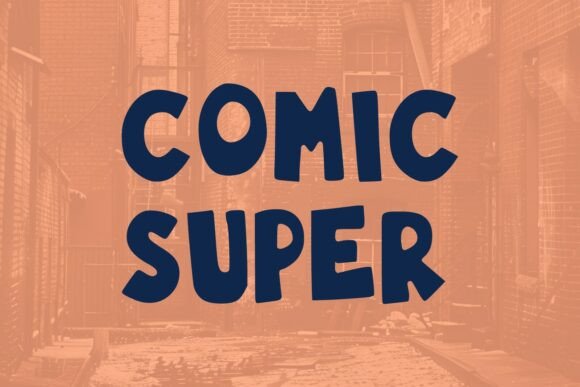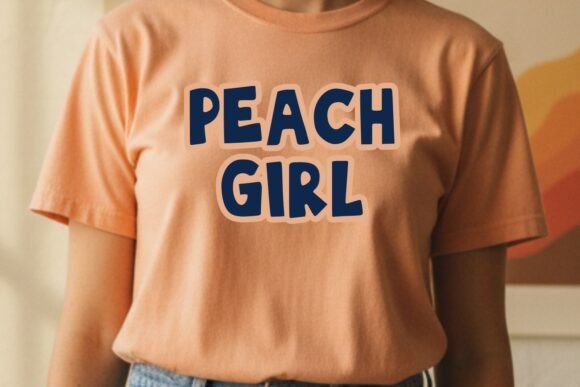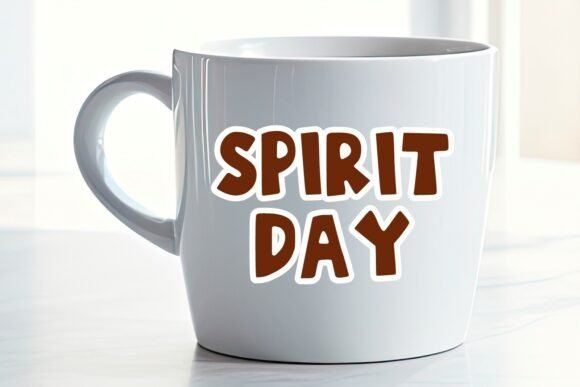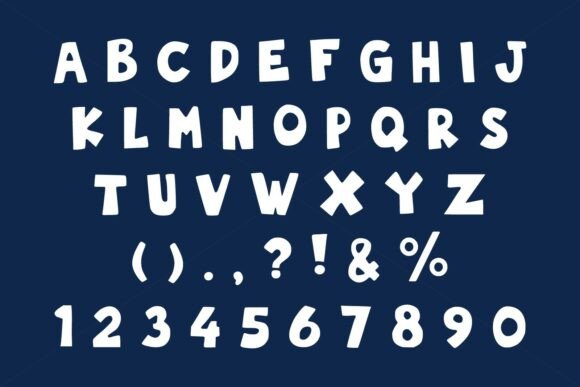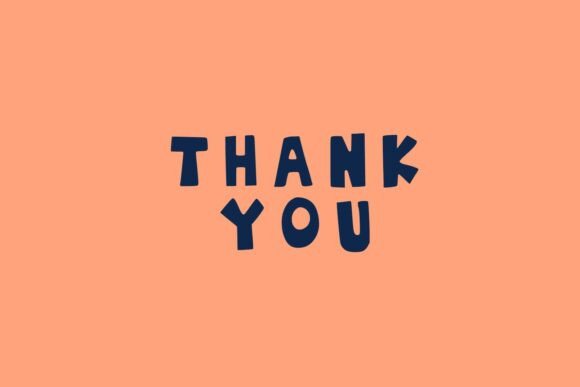
Discover the Amazing Vintage Font: A Timeless Retro Display Font
Are you on the hunt for a font that exudes a playful and nostalgic character? Look no further than the Amazing Vintage font, a bold retro display font that’s perfect for adding a touch of classic vintage charm to your designs. With its thick letterforms and strong, stylish appearance, this typeface is ideal for a wide range of projects, from posters and logos to branding, packaging, apparel, and eye-catching headlines.
What Makes Amazing Vintage Font So Special?
The Amazing Vintage font is a true standout in the world of typography. Its bold, retro-inspired design is reminiscent of a bygone era, evoking feelings of nostalgia and playfulness. The font’s thick letterforms give it a sturdy, confident appearance that’s perfect for making a statement. Whether you’re looking to create a bold logo, a striking poster, or a stylish brand identity, Amazing Vintage is the perfect choice.
Key Features of Amazing Vintage Font
• Bold Retro Design: Amazing Vintage boasts a bold, retro-inspired design that’s perfect for creating eye-catching headlines and titles.
• Thick Letterforms: The font’s thick letterforms give it a sturdy, confident appearance that’s perfect for making a statement.
• Classic Vintage Vibe: Amazing Vintage has a classic vintage vibe that’s perfect for adding a touch of nostalgia to your designs.
• Playful and Nostalgic Character: The font’s playful and nostalgic character makes it perfect for projects that require a fun and lighthearted touch.
Use Cases for Amazing Vintage Font
Amazing Vintage is a versatile font that can be used for a wide range of projects, including:
• Posters: Create eye-catching posters that grab attention with Amazing Vintage’s bold, retro-inspired design.
• Logos: Use Amazing Vintage to create a bold, stylish logo that makes a statement.
• Branding: Add a touch of nostalgia to your brand identity with Amazing Vintage’s classic vintage vibe.
• Packaging: Make your product stand out on store shelves with Amazing Vintage’s bold, eye-catching design.
• Apparel: Create stylish, retro-inspired apparel with Amazing Vintage’s bold, playful design.
• Headlines: Use Amazing Vintage to create eye-catching headlines that grab attention.
Why Designers and Crafters Love Amazing Vintage Font
Designers and crafters love Amazing Vintage for its unique blend of style, versatility, and nostalgia. Here are just a few reasons why:
• Easy to Read: Despite its bold design, Amazing Vintage is easy to read, even at smaller sizes.
• Highly Versatile: Amazing Vintage can be used for a wide range of projects, from posters and logos to branding and packaging.
• Timeless Appeal: Amazing Vintage’s classic vintage vibe ensures that it will never go out of style.
Tips for Using Amazing Vintage Font
In conclusion, Amazing Vintage is a truly amazing font that’s perfect for designers and crafters looking to add a touch of nostalgia and style to their projects. With its bold, retro-inspired design, thick letterforms, and classic vintage vibe, this typeface is sure to make a statement. Whether you’re creating posters, logos, branding, packaging, apparel, or headlines, Amazing Vintage is the perfect choice.